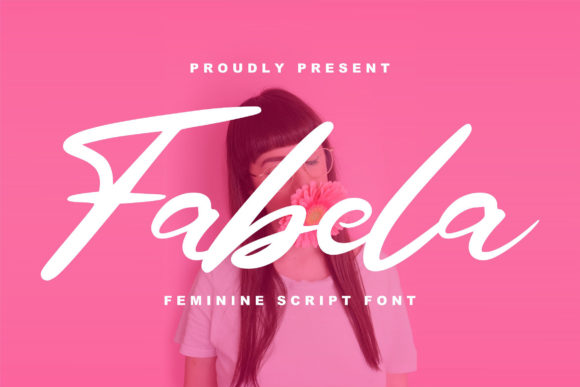
Fabela Font: The Ultimate Friendly Handwritten Font for Designers and Crafters
Are you tired of using the same old fonts in your designs? Do you want to add a touch of personality and friendliness to your projects? Look no further than the Fabela Font! This adorable handwritten font is perfect for designers and crafters who want to create unique and engaging designs that stand out from the crowd.
What is Fabela Font?
Fabela is a cute and casual handwritten font with an incredibly friendly feel. It’s the perfect choice for anyone who wants to add a personal touch to their designs, whether it’s for a branding project, a craft project, or even just a social media post. The font’s friendly and approachable vibe makes it ideal for designs that need to connect with the audience on a personal level.
PUA Encoding: What does it mean?
One of the best things about Fabela Font is that it’s PUA (Private Use Area) encoded. But what does that mean exactly? In simple terms, PUA encoding allows you to access a wide range of glyphs and swashes with ease. This means you can add even more personality and flair to your designs, making them truly one-of-a-kind.
Key Features of Fabela Font
• Cute and Casual: Fabela Font has a playful, handwritten feel that’s perfect for designs that need to be friendly and approachable.
• PUA Encoded: With PUA encoding, you can access a wide range of glyphs and swashes, making it easy to add unique touches to your designs.
• Versatile: Fabela Font is perfect for a wide range of design projects, from branding and advertising to crafting and DIY projects.
Uses for Fabela Font
Fabela Font is incredibly versatile, making it perfect for a wide range of design projects. Here are just a few ideas to get you started:
• Branding and Advertising: Use Fabela Font to create unique and memorable logos, business cards, and advertising materials.
• Crafting and DIY Projects: Add a personal touch to your crafting and DIY projects, such as handmade cards, gift tags, and scrapbooking pages.
• Social Media Graphics: Use Fabela Font to create eye-catching social media graphics, such as Facebook posts, Instagram stories, and Twitter headers.
• Web Design: Add a touch of personality to your website with Fabela Font, perfect for headings, titles, and other design elements.
Tips for Using Fabela Font
Here are a few tips for getting the most out of Fabela Font:
• Experiment with Glyphs and Swashes: With PUA encoding, you have access to a wide range of glyphs and swashes. Experiment with different combinations to add unique touches to your designs.
• Mix and Match with Other Fonts: Fabela Font pairs well with a wide range of other fonts. Try mixing and matching to create unique and interesting combinations.
• Use it for Headings and Titles: Fabela Font is perfect for headings and titles, adding a touch of personality and flair to your designs.